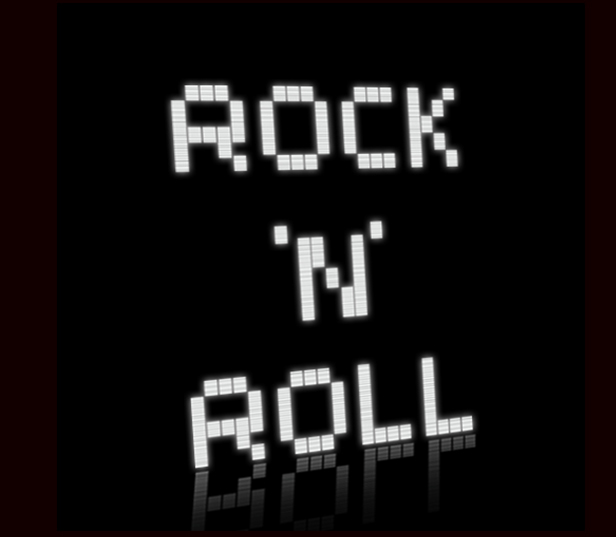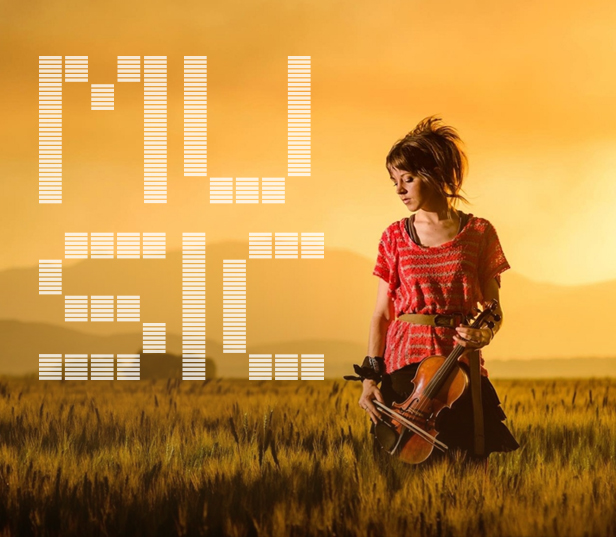
Discover the Beauty of Beato Headline Font
Are you a designer or crafter looking for a unique and stunning typeface to elevate your creative projects? Look no further than the Beato Headline Font! This beautiful font is perfect for making a statement and adding a touch of elegance to your designs. In this article, we’ll explore the features and uses of Beato Headline Font, and why it’s a must-have for any creative professional.
What is Beato Headline Font?
Beato Headline Font is a carefully crafted typeface designed to make a lasting impression. Its unique and stylish letterforms are perfect for creating eye-catching headings, logos, book covers, posters, and more. The font’s sleek and modern design makes it versatile and suitable for a wide range of applications, from digital designs to print materials.
Key Features of Beato Headline Font
- Unique and Stylish Design: Beato Headline Font boasts a distinctive and stylish design that sets it apart from other typefaces.
- Highly Versatile: The font is suitable for a wide range of applications, including headings, logos, book covers, posters, and more.
- Elegant and Sophisticated: Beato Headline Font adds a touch of elegance and sophistication to any design.
- Easily Readable: Despite its stylized design, the font remains easily readable, making it perfect for use in a variety of contexts.
Uses of Beato Headline Font
Beato Headline Font is a versatile typeface that can be used for a wide range of creative projects, including:
- Headings and Titles: Use Beato Headline Font to create eye-catching headings and titles for your designs.
- Logos and Branding: The font’s unique design makes it perfect for creating distinctive logos and branding materials.
- Book Covers: Add a touch of elegance to your book covers with Beato Headline Font.
- Posters and Flyers: Use the font to create eye-catching posters and flyers that grab attention.
- Digital Designs: Beato Headline Font is perfect for use in digital designs, including social media graphics, website headers, and more.
Why Choose Beato Headline Font?
With so many typefaces available, why choose Beato Headline Font? Here are just a few reasons why this font stands out:
- Unique Design: Beato Headline Font boasts a distinctive design that sets it apart from other typefaces.
- High-Quality: The font is carefully crafted to ensure high-quality and clear letterforms.
- Versatile: The font’s versatility makes it suitable for a wide range of applications and creative projects.
In conclusion, Beato Headline Font is a beautiful and versatile typeface that’s perfect for designers and crafters looking to elevate their creative projects. With its unique design, high-quality letterforms, and ease of use, this font is a must-have for anyone looking to add a touch of elegance and sophistication to their designs. Whether you’re creating headings, logos, book covers, or posters, Beato Headline Font is the perfect choice.